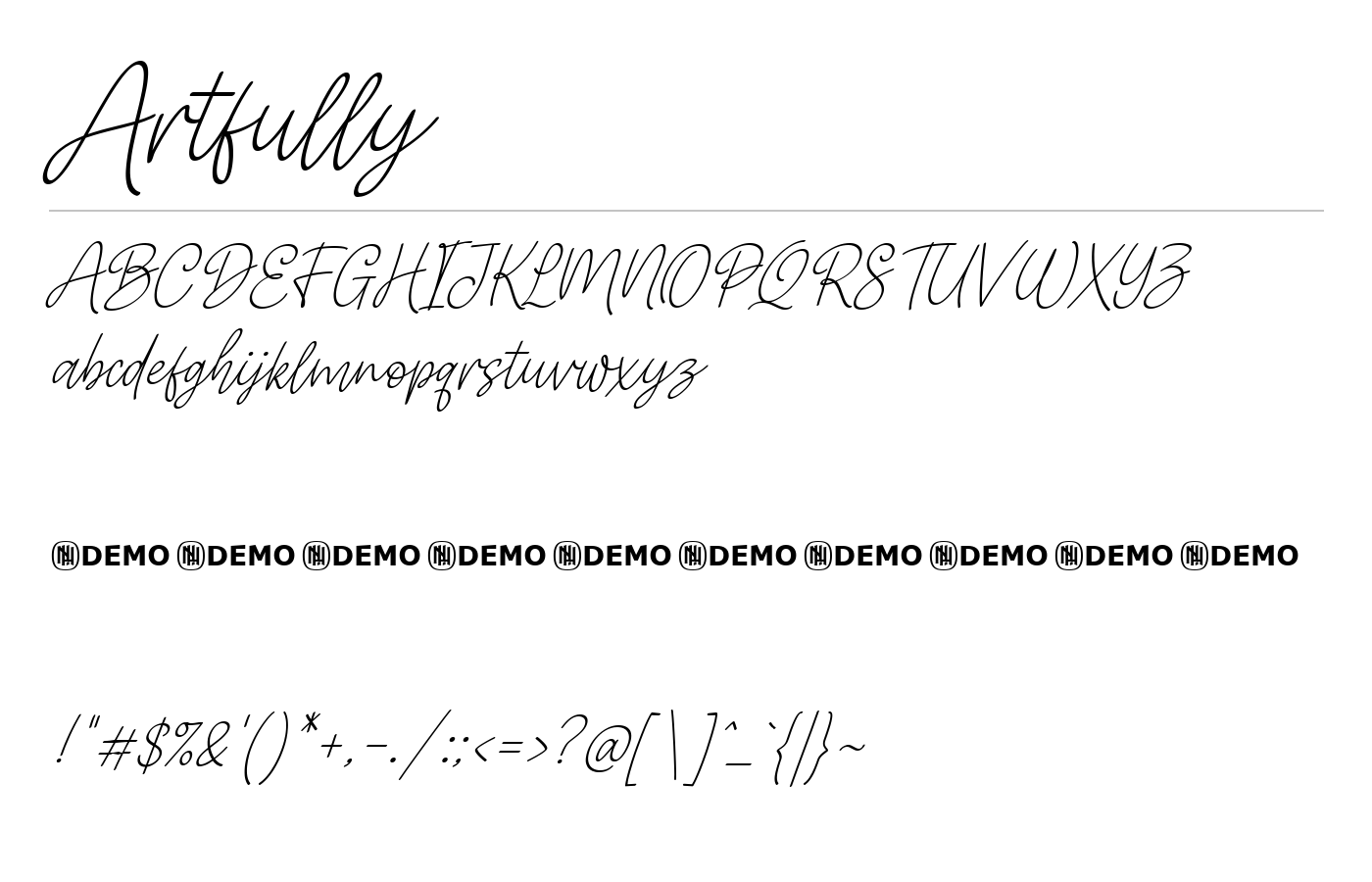
Artfully Font is a delicate and elegant script typeface with a thin, flowing stroke that mimics natural handwriting. Its slender, slightly slanted letterforms and subtle curves make it perfect for adding a sophisticated, personal touch to invitations, branding, and feminine or artistic designs. This font shines in uses where a graceful and refined aesthetic is desired, especially for logos, packaging, and headlines that seek a warm, creative appeal.
Artfully Font
About Artfully Font
| Font family | Artfully Font |
| Designer | Ali Hamidi |